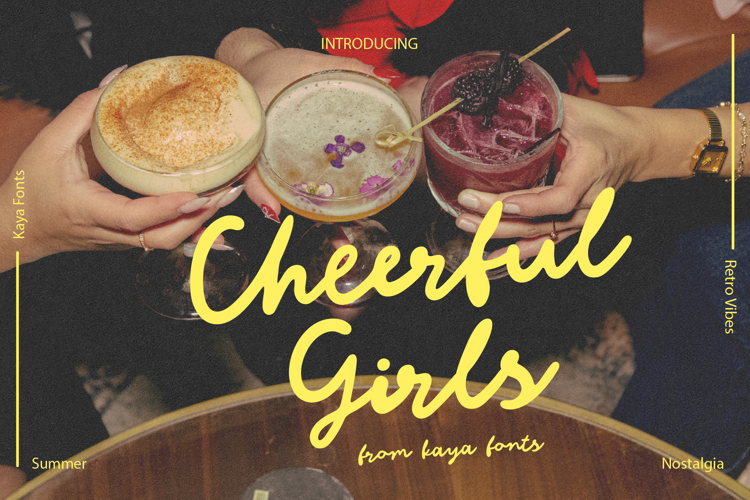
Cheerful Girls Handwritten Retro Vibes Script
Cheerful Girls is a bold handwritten script with expressive, imperfect strokes and a free-spirited retro vibe. Every letter feels spontaneous, stylish, and full of creative energy.
Perfect for printing, editorial designs, posters, weddings, branding, logos, DIY designs and more.